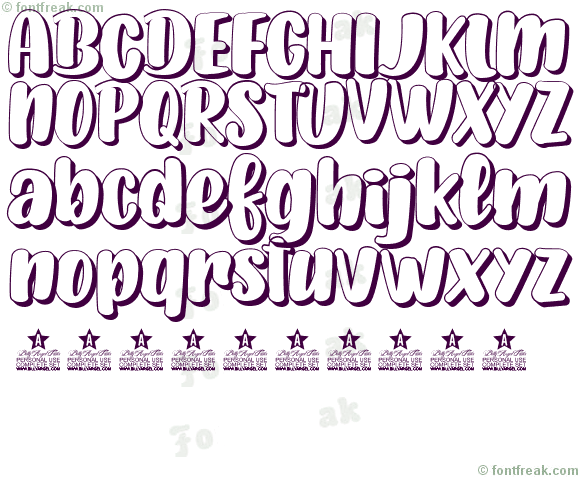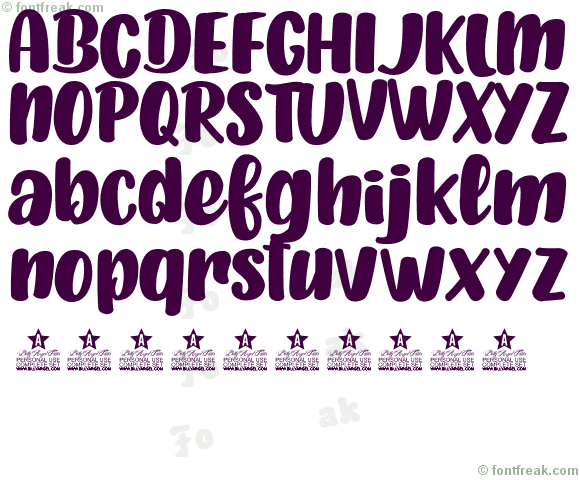
TAN PUMPKINS BACK PERSONAL USE
About TAN PUMPKINS BACK PERSONAL USE
TAN PUMPKINS BACK PERSONAL USE font by Billy Argel Fonts is a whimsical display typeface that captures a playful and festive spirit. This font features rounded letterforms with a unique blend of bold and light strokes, creating an inviting visual appeal. The contrast between the thick and thin strokes gives it a lively character, while the generous spacing between the letters enhances readability, making it suitable for various applications.
This font is particularly effective for use in seasonal projects, such as Halloween-themed invitations, fall festival posters, and autumnal greeting cards. Its distinctive style also makes it a great choice for children’s book covers, playful branding for cafes or bakeries, and decorative signage at events. Graphic designers, small business owners, and content creators will find this font to be a versatile addition to their toolkit, allowing them to convey a sense of fun and creativity in their work.
In summary, TAN PUMPKINS BACK PERSONAL USE offers a charming and distinctive look that stands out in any design. Its versatility and engaging style make it an excellent choice for a wide range of creative endeavors, ensuring that your work will not only be functional but also visually captivating.